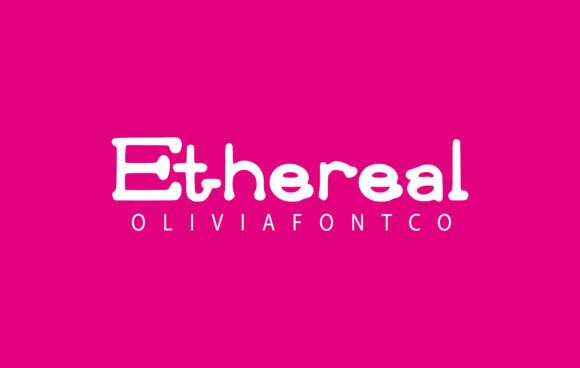
Ethereal Font: Elevate Your Designs with a Romantic and Authentic Handwritten Style
Are you searching for a font that can add a touch of romance and elegance to your designs? Look no further than the Ethereal Font. This beautiful, authentic handwritten font is expertly designed to capture the hearts of designers and crafters alike. With its unique blend of sophistication and whimsy, Ethereal Font is the perfect choice for a wide range of creative projects.
What Makes Ethereal Font So Special?
Ethereal Font is more than just a font – it’s an experience. Its romantic and authentic handwritten style is sure to transport your audience to a world of beauty and wonder. Whether you’re designing a wedding invitation, a social media post, or a magazine headline, Ethereal Font is the perfect choice. Its legibility and versatility make it ideal for use as both title and body text, giving you the flexibility to create stunning designs that capture your unique vision.
Endless Design Possibilities with Ethereal Font
One of the best things about Ethereal Font is its incredible versatility. Its elegant and refined style makes it perfect for a wide range of design applications, including:
- Magazine headlines and articles
- Cards and gift tags
Whether you’re a professional designer or a crafty DIY enthusiast, Ethereal Font is the perfect choice for any project that requires a touch of elegance and sophistication.
Why Choose Ethereal Font?
So why choose Ethereal Font over other fonts on the market? Here are just a few reasons:
- Unique and authentic style: Ethereal Font is a one-of-a-kind font that will set your designs apart from the crowd.
- Legible and versatile: Use Ethereal Font as title text, body text, or anywhere else you need a touch of elegance.
- Expertly designed: Ethereal Font is designed by a professional, ensuring that it meets the highest standards of quality and craftsmanship.
Tips for Using Ethereal Font in Your Designs
Here are a few tips for getting the most out of Ethereal Font in your designs:
- Pair it with a bold font: Combine Ethereal Font with a bold, modern font for a striking contrast.
- Use it for headlines and titles: Ethereal Font is perfect for grabbing attention with headlines and titles.
- Experiment with colors and textures: Add depth and interest to your designs by experimenting with different colors and textures.
- Authentic handwritten font
- Romantic and elegant style
- Legible and versatile
- Perfect for a wide range of design applications
- Expertly designed and crafted